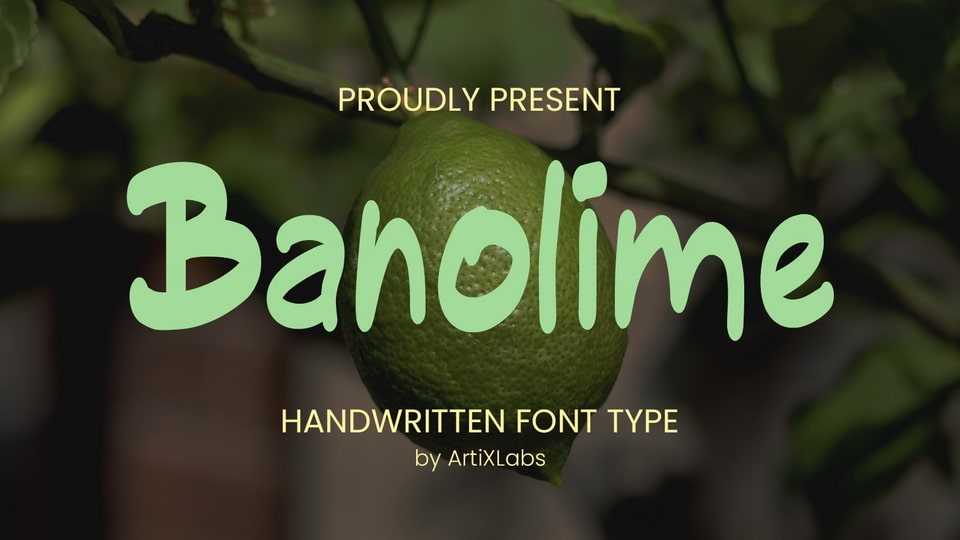
Download Banolime font, a fresh and playful handwritten typeface with rounded strokes and a friendly personality, perfect for logos, packaging, social media.
Designer: ArtiXLabs